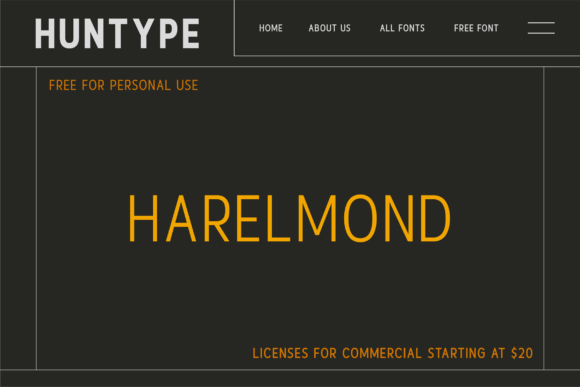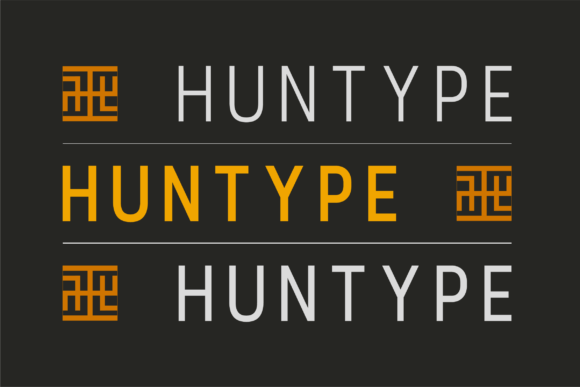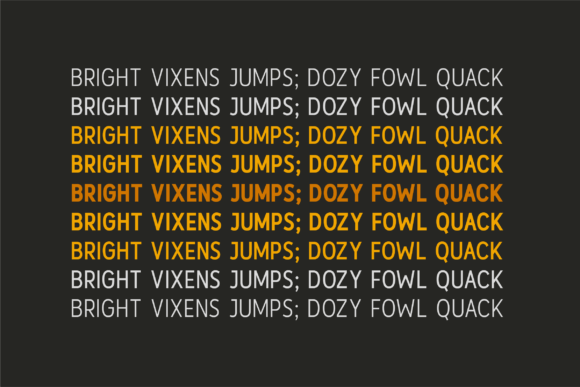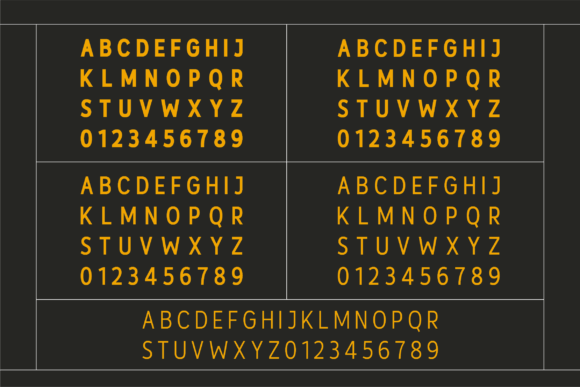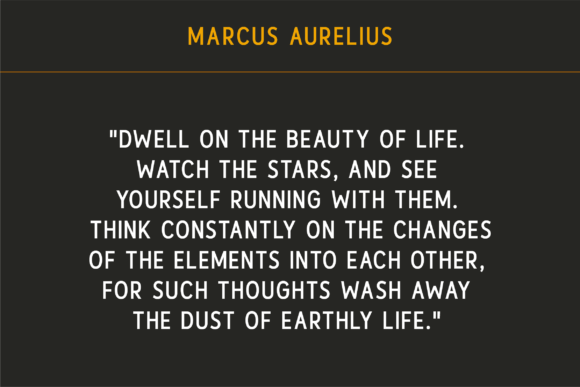
Introducing Harelmond: The Ultimate Font Family for Elegance and Versatility
In the world of typography, a font can make all the difference in the success of a design project. With the right font, you can convey your message with clarity, style, and sophistication. This is where Harelmond comes in – a meticulously crafted font family that epitomizes elegance, modernity, and versatility. In this article, we’ll explore the features and benefits of Harelmond, and why it’s the perfect choice for designers and content creators.
A Font Family with Depth and Range
Harelmond is not just a font, but a font family with five distinct weights: THIN, LIGHT, REGULAR, BOLD, and BLACK. This range of weights offers a wide range of creative possibilities, making it suitable for various design applications, from subtle and delicate to bold and impactful. Whether you’re designing a logo, brochure, or website, Harelmond provides the flexibility to experiment with different styles and tones.
Elegance and Sophistication
At the heart of Harelmond lies a seamless blend of sophistication and contemporary style. The font’s sleek lines, precise curves, and balanced proportions create a sense of refinement and poise. The THIN and LIGHT weights are perfect for designs that require a subtle touch, such as luxury brands, high-end products, or elegant event invitations. On the other hand, the BOLD and BLACK weights are ideal for making a statement, adding emphasis, or creating a dramatic effect.
Versatility for Various Design Applications
Harelmond’s versatility is one of its standout features. The font family can be used across various design applications, including:
- Branding and Logo Design: Create a lasting impression with Harelmond’s elegant and modern aesthetic.
- Print Design: Use Harelmond for brochures, flyers, posters, and business cards to add a touch of sophistication.
- Digital Design: Harelmond is perfect for websites, mobile apps, and social media graphics, ensuring a consistent and professional look.
- Packaging Design: Add a premium feel to your product packaging with Harelmond’s luxurious and refined style.
Why Choose Harelmond?
With so many font options available, why choose Harelmond? Here are a few compelling reasons:
- Unique and Distinctive: Harelmond’s elegant and modern design sets it apart from other font families.
- Highly Legible: The font’s clear and balanced design ensures excellent readability, even at small sizes.
- Flexible and Adaptable: With five weights and a range of design applications, Harelmond is an incredibly versatile font family.
In conclusion, Harelmond is a font family that embodies elegance, modernity, and versatility. With its five distinct weights, seamless blend of sophistication and contemporary style, and adaptability across various design applications, Harelmond is the perfect choice for designers and content creators. Whether you’re aiming for a subtle and delicate touch or a bold and impactful statement, Harelmond ensures your projects will shine with distinction.